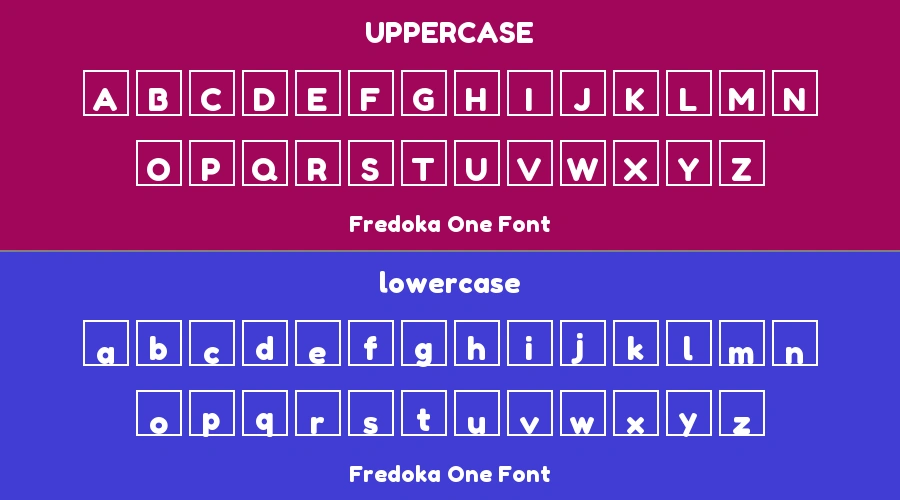
About Fredoka One Font
Designed with precision, Fredoka One Font merges elegant proportions with consistency in every character. This versatility makes it particularly effective for digital interfaces, where craftsmanship and market appeal directly impact communication quality. Each letterform demonstrates meticulous craftsmanship.
Technical excellence shines through elements like elegant curves and period-specific forms, enhancing typographic versatility. In display applications settings, Fredoka One Font proves its worth through superior detail preservation. The thoughtful execution of apex design and subtle details ensures professional results.